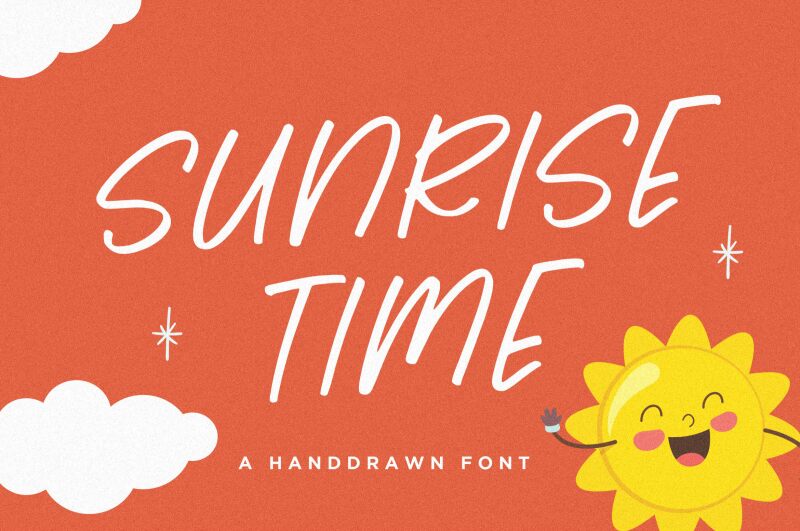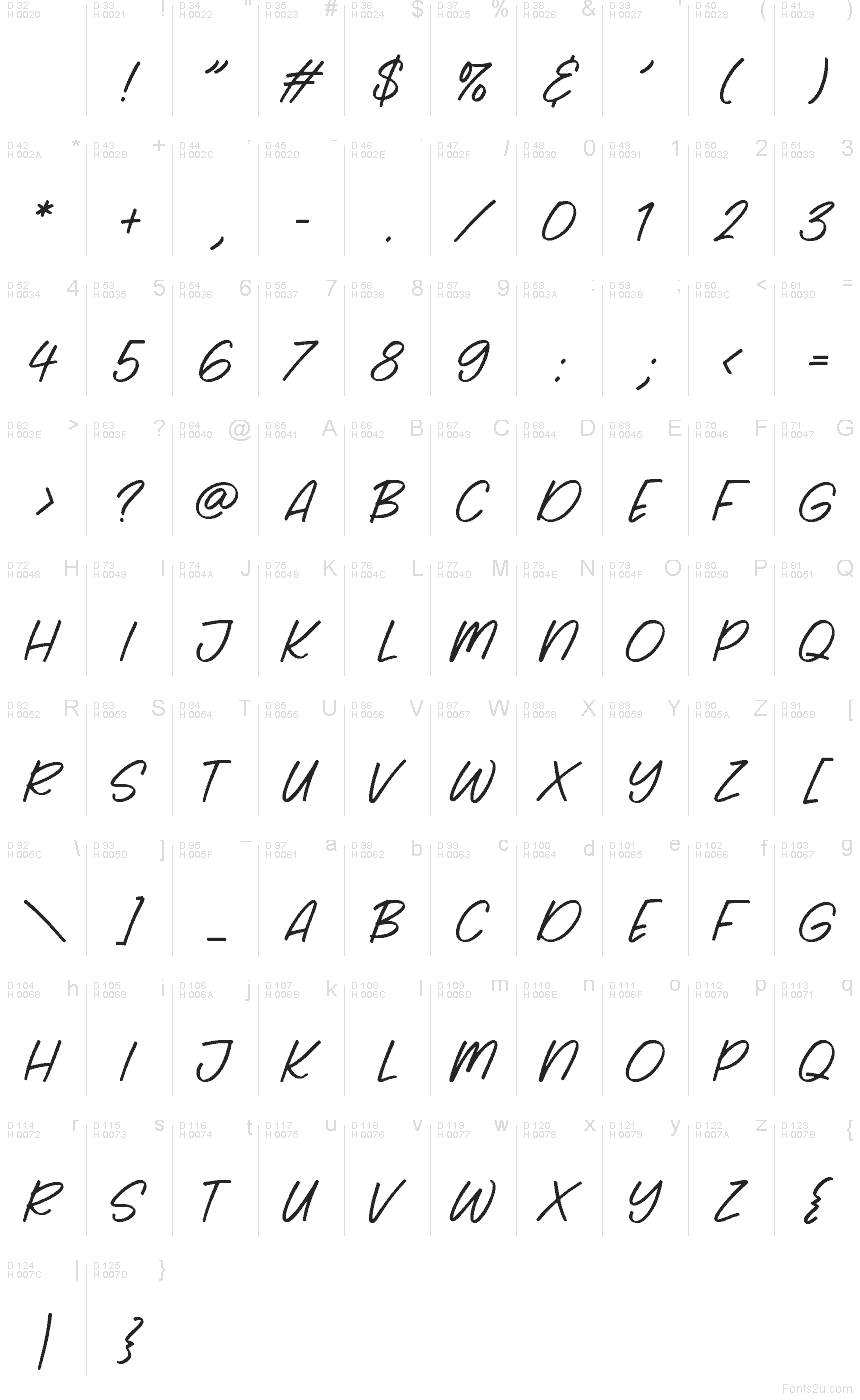
Sunrise Time
Sunrise Time font by Balpirick Studio is a free handwritten script typeface with the breezy energy of a quick, confident signature. Its tall, slightly slanted letters feel like they were written with a smooth brush pen—casual, airy, and just messy enough to feel real. The strokes are slim and fluid, giving text a light, sunlit character that works beautifully when you want personality without losing readability.
Using Sunrise Time, this free font shines on social media quotes, lifestyle branding, product packaging, logos, wedding details, and blog headers that call for a relaxed, modern touch. The consistent rhythm of the letters keeps even longer words easy on the eye, while the informal flow adds warmth and charm. Pair it with a simple sans serif for body text and let Sunrise Time handle your headlines, signatures, and short phrases at larger sizes.